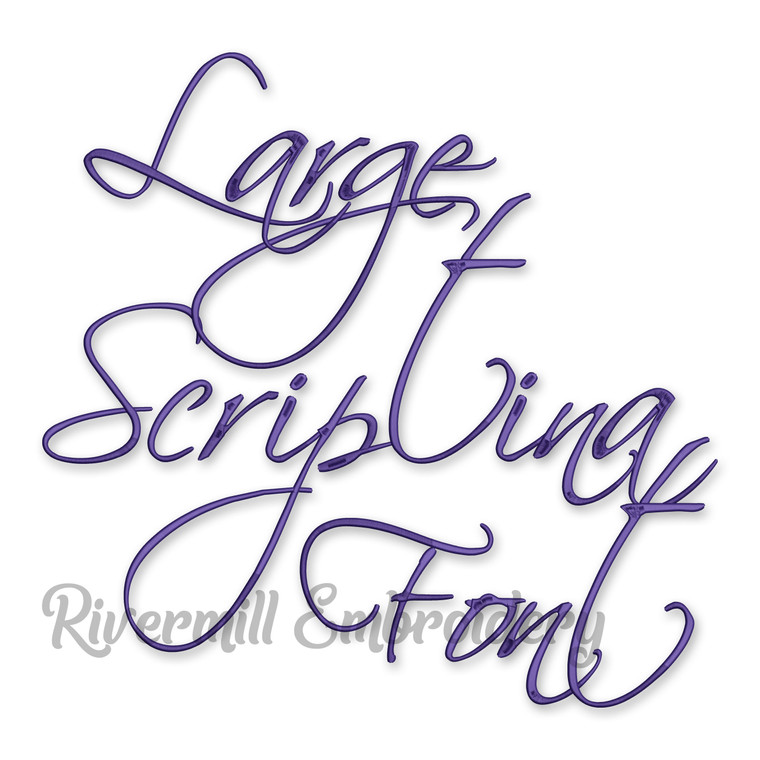
Large Scriptina Machine Embroidery Font Alphabet
This set does NOT work with a 4x4.  Some letters are fairly large because of the swirls.  You get upper and lower case letters in 3 sizes: